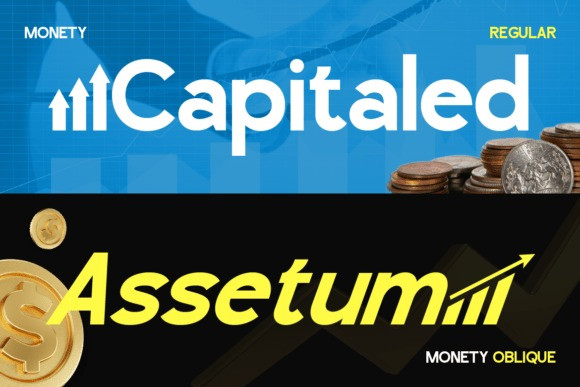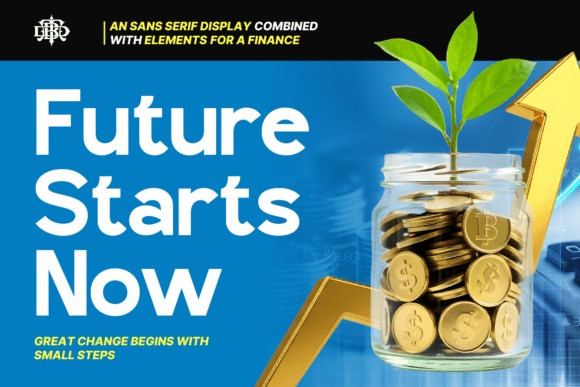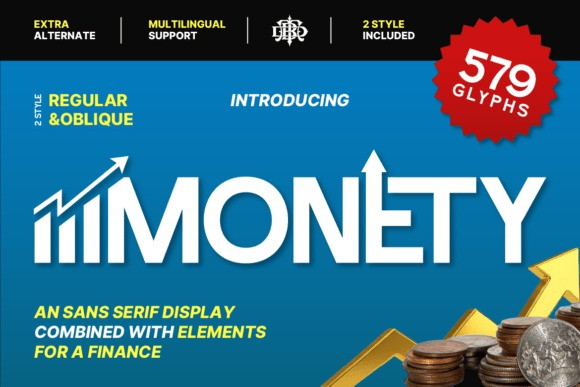
Monety Font
Monety Font is a modern Sans Serif display typeface designed specifically for the world of finance, fintech, and high-stakes branding. With over 579 glyphs and a unique “growth element” design, featuring integrated bar charts and upward arrows, this font captures the spirit of a rising market. If you’re creating branding for fintech startups, investment platforms, business presentations, or promotional campaigns, Monety helps your message stand out with clarity and authority.